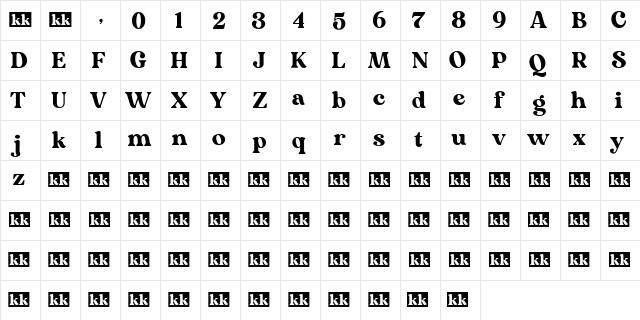
Mogena Regular
Design Context for Mogena Typeface
Mogena is a composed and adaptable typeface that performs quietly and consistently across a wide range of design contexts.
Pro Tip: Use Mogena in both headline and body roles to test its range before committing to a single application.